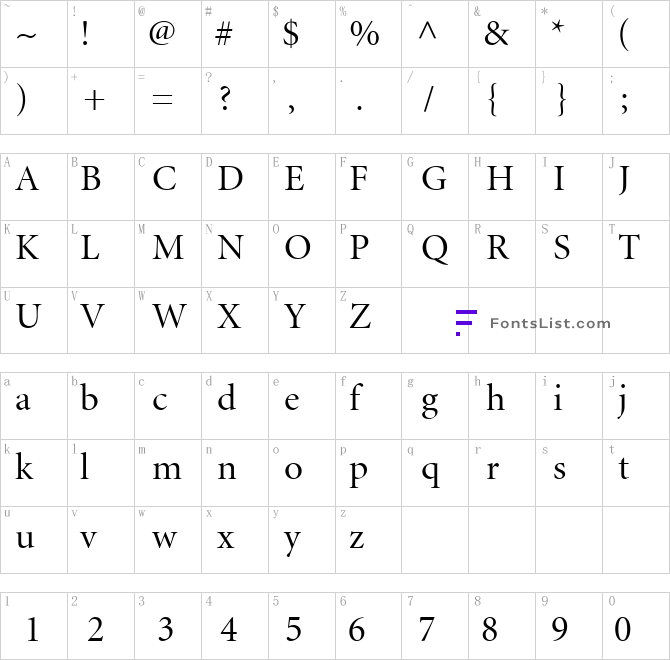
- Font Name:Atlantix Display SSi
Atlantix-Display-SSi-Display-Regular.ttf is a very beautiful artistic font, Atlantix-Display-SSi-Display-Regular.ttf is widely used in the design and printing of various books and pictures,Atlantix-Display-SSi-Display-Regular.ttf has a strong visual impact,Atlantix-Display-SSi-Display-Regular.ttf is a commonly used font in newspapers, magazines and books, and is used in posters, e-commerce Poster design, store design, logo design, font design and other fields.Atlantix-Display-SSi-Display-Regular.